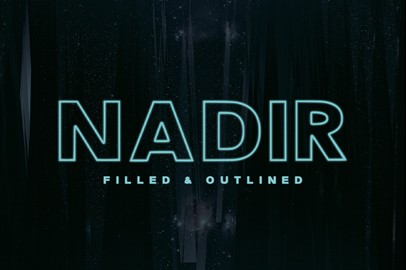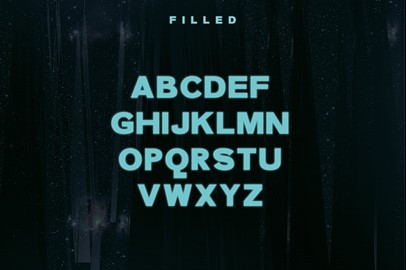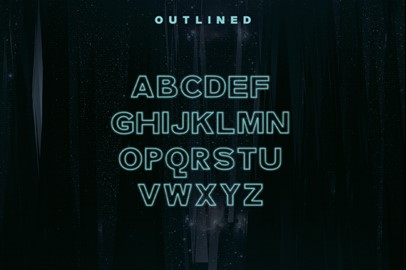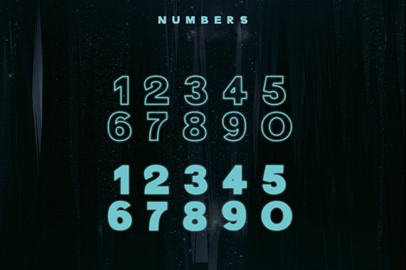
Nadir Typeface
[/b]Nadir[/b] is a bold sans typeface. It comes in both filled & outline styles as well as uppercase, lowercase, numbers, basic symbols, and punctuation.